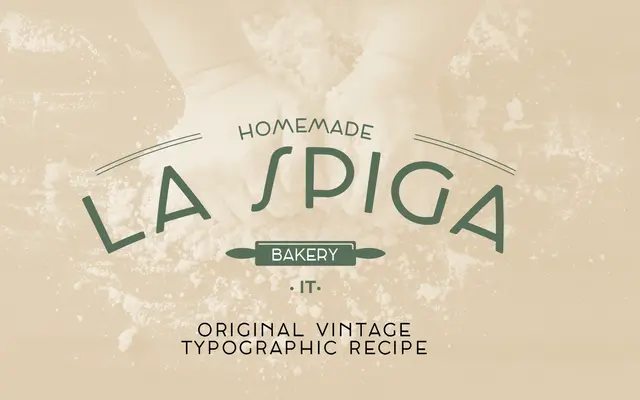
Cocosignum
Zetafonts · Cosimo Lorenzo Pancini · 2017
An Art Deco display family drawing on Italian 1930s typography, pairing imperial propagandist uppercase forms with a geometric cursive lowercase.
Designed by Cosimo Lorenzo Pancini and released in 2017 as part of the Christmas Vibes set, Cocosignum comes in two distinct subfamilies: Corsivo Italico, which combines the monumental uppercase with a cursive geometric script lowercase, and Maiuscoletto, which leans into the small-capitals register. Both run across five weights from Ultralight to Heavy, and the family covers 205 languages across Latin, Greek and Cyrillic scripts. The propaganda-deco overtones of the uppercase give it a period flavour suited to packaging, branding and editorial work with a retro Italian sensibility.
Cocosignum blends imperial Art Deco uppercase lettering with a geometric cursive lowercase, placing it firmly in the display category with a distinct Italian 1930s propaganda-deco aesthetic.